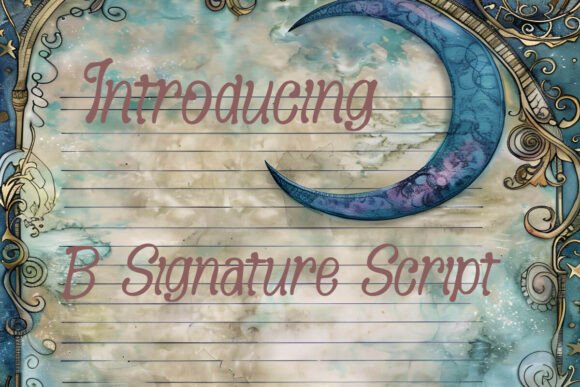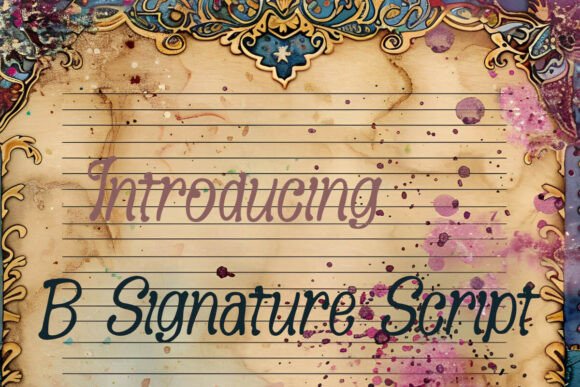
Elevate Your Designs with B Signature Script: A Timeless Font for Creatives
Have you ever been in the middle of a design project, and suddenly, it all comes down to finding that perfect font? I recall working on a branding project for a luxury client, and the struggle was real. The design was sleek, the colors were on point, but the font just wasn’t giving me the sophistication I needed. That’s when I stumbled upon B Signature Script, and it was love at first sight! ✨
In this article, we’ll dive into the world of B Signature Script, exploring its features, uses, and what makes it a must-have for designers, crafters, and creative hobbyists.
An Honest Review of B Signature Script
- ✨ Timeless Elegance: B Signature Script brings a touch of sophistication to any design project.
- ✅ Versatility: Perfect for enhancing shirts, stickers, branding initiatives, magazine layouts, SVG files, Cricut projects, greeting cards, and poster designs.
- 💫 Seamless Integration: Blends effortlessly into social media aesthetics, ensuring your content is always beautifully presented.
While B Signature Script is a stunning font, there are a few things to keep in mind: ⚠️
- 🤔 Glyph Limitations: Some users have reported limited glyph options, which might restrict the font’s full potential.
- ⚠️ Kerning Issues: As with any script font, kerning can be a bit tricky, especially when using it for body text.
- Explore OpenType features, such as stylistic alternates and glyphs, to add personality to your text.
The Backstory of B Signature Script
Rumor has it that B Signature Script was inspired by the elegant handwriting of 19th-century calligraphers. The font’s creator aimed to capture the essence of timeless sophistication, blending classic and modern elements. While the exact story might be fictional, one thing is certain: B Signature Script has become a staple in many designers’ font libraries.
| Is B Signature Script suitable for body text? | While B Signature Script is stunning for headlines and titles, it might not be the best choice for body text due to its script nature. |
In conclusion, B Signature Script is a versatile and elegant font that can elevate your design projects to new heights. With its timeless character, it’s perfect for a wide range of applications, from branding and advertising to crafting and social media graphics. Give it a try and experience the charm of B Signature Script for yourself! 💫